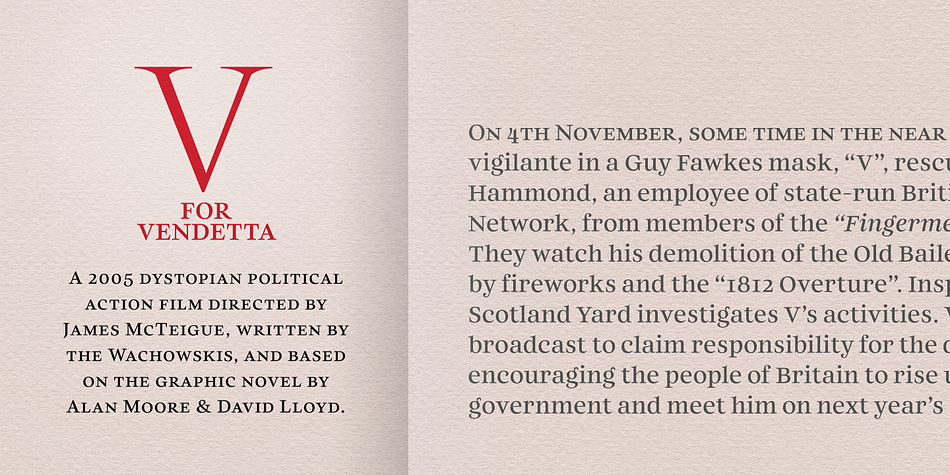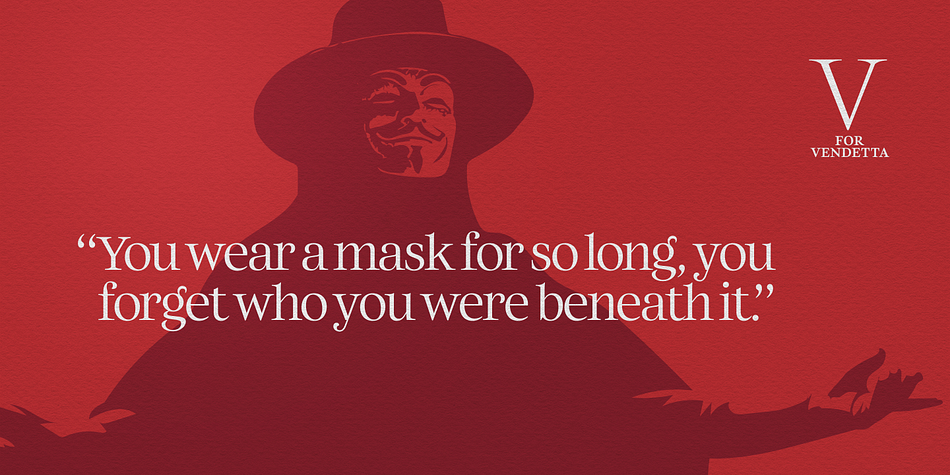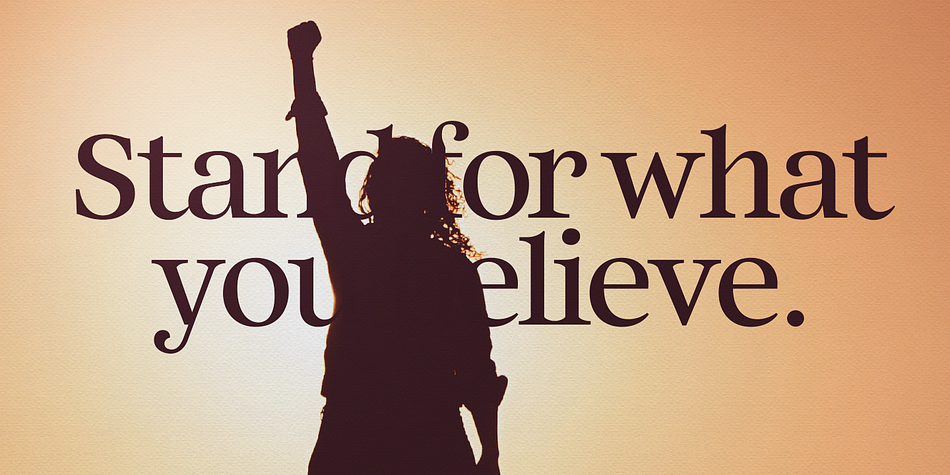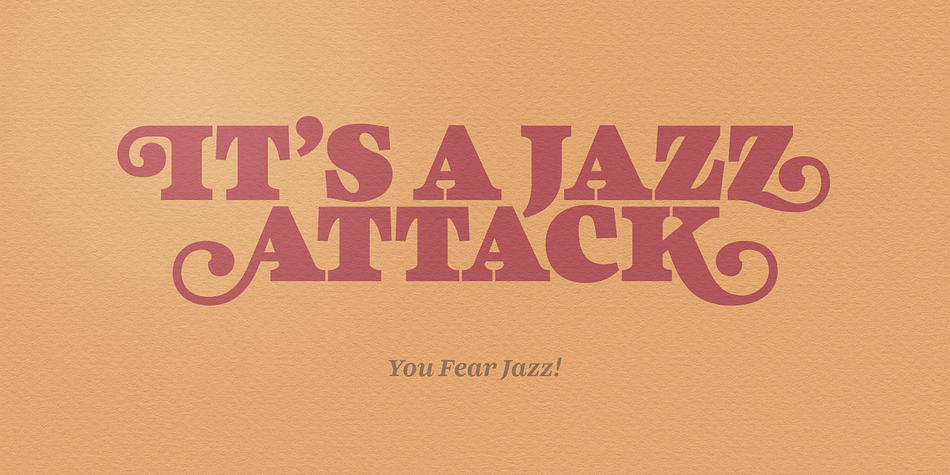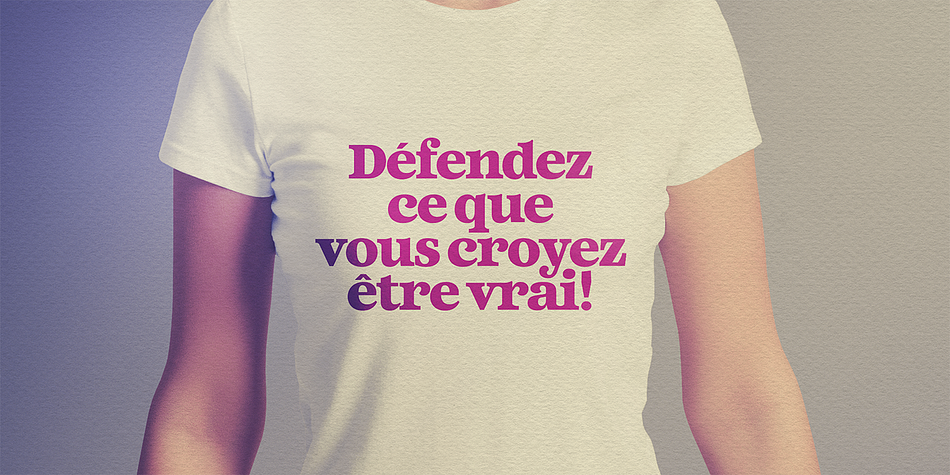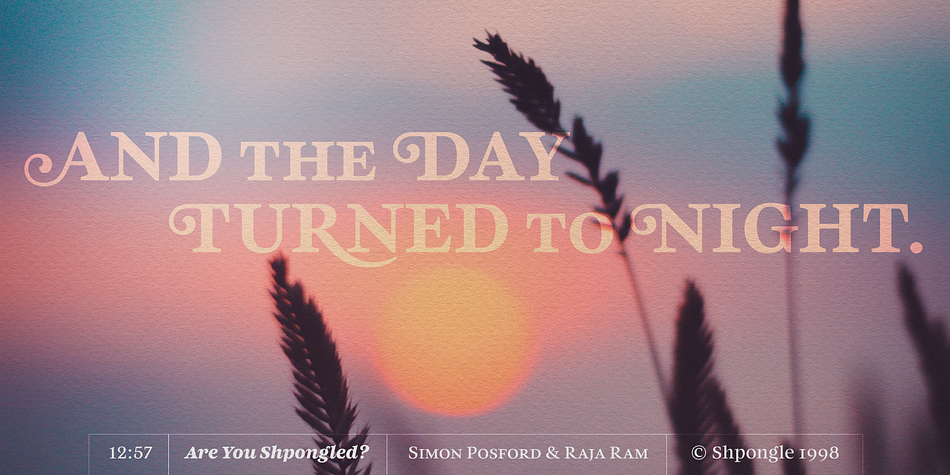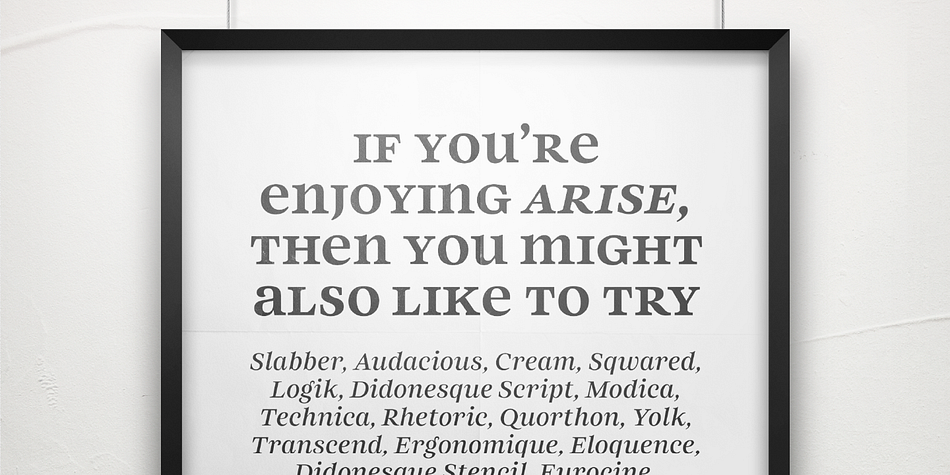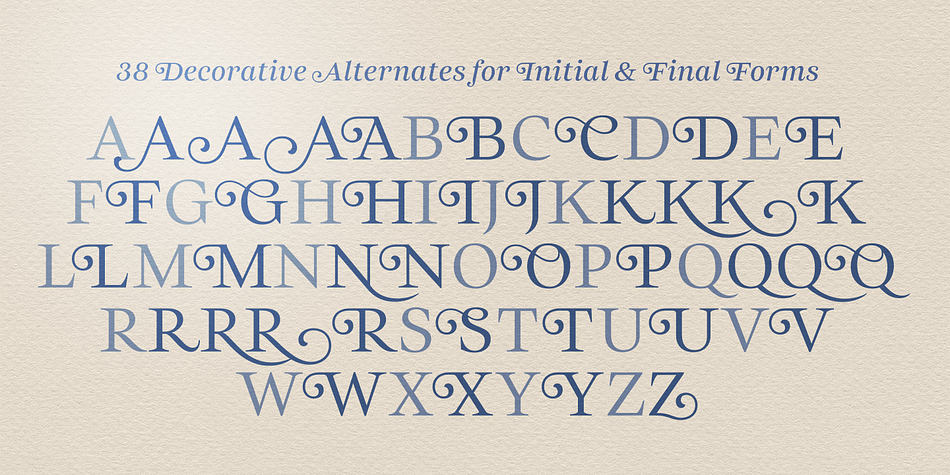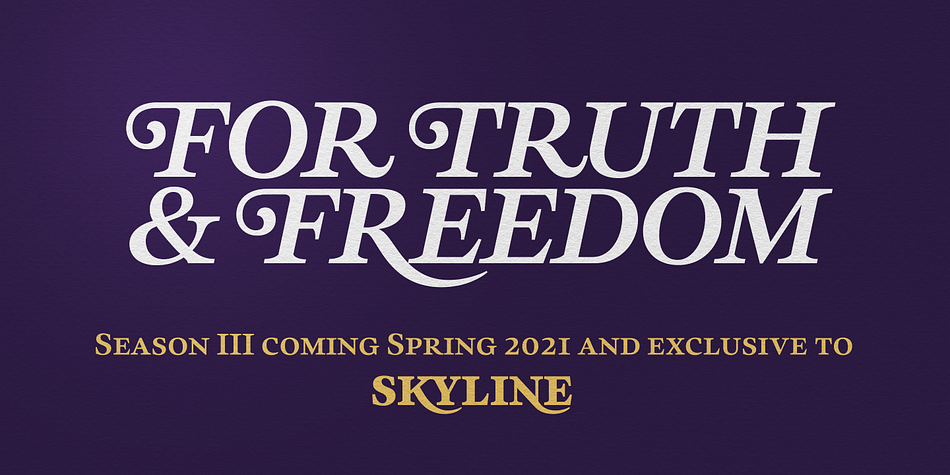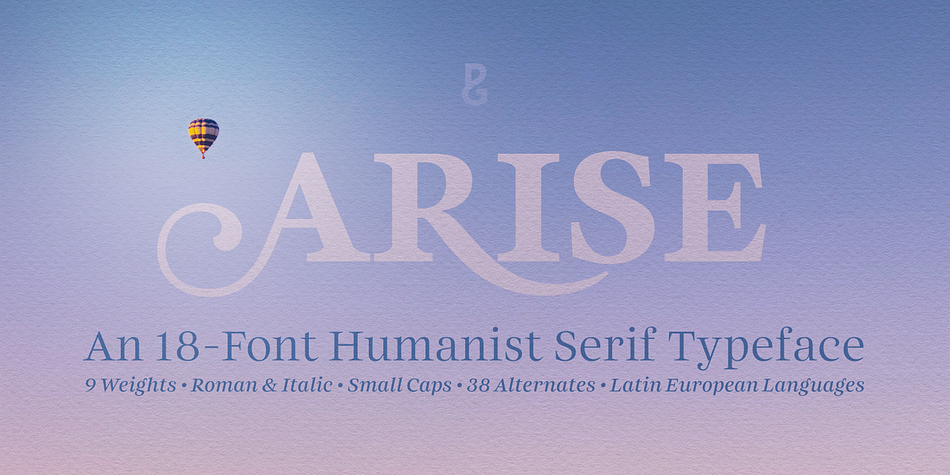
Designed by Paulo Goode, Arise is a retro and serif font family. This typeface has eighteen styles and was published by Paulo Goode.
Arise speaks clearly and with purpose, it does not need to shout to be heard. It is fairly innocuous and unassuming, you could perhaps say it is straightforward and boring at first glance… but hopefully you will see its defining features upon closer inspection and appreciate its humanistic qualities, its irregularities, and its distinctive elements.
Arise is a multi-purpose type family – being equally at home in text and display scenarios, it retains a pen-drawn style that comes to the fore in its hooked terminals and decorative swash alternates. As can be seen in the /a/c/f/g/r/y/ glyphs, hooked terminals are a key feature of this typeface. These terminals are blade-like in appearance, defining a distinctive character that is unusual, yet balanced and refined.
Practical features include 38 capital swash alternates for intial and final forms that can be particularly effective when used in titling and branding situations. Small caps are also included (along with matching diacritics) – these are designed to harmonise with regular lowercase forms so that you may easily achieve unicase-style typography.
There are 18 fonts altogether, with 9 weights from ExtraLight to Ultra in both roman and italic. Arise has an extensive character set that covers all Latin European languages.